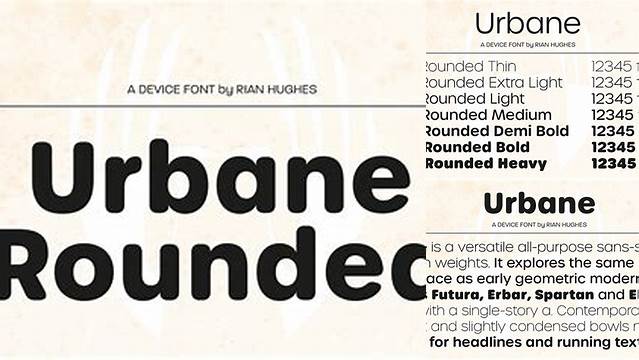
What is Urbane Rounded Font?
The urbane rounded font family is a modern, geometric sans-serif typeface characterized by its smooth, rounded terminals and clean lines. Think of it as the friendly face of fonts! Its design gives it a contemporary and approachable feel, making it incredibly versatile for various applications. Whether you're designing a website, creating marketing materials, or working on a branding project, an urbane rounded font can bring a touch of sophistication and warmth. The rounded edges soften the otherwise sharp lines of a sans-serif font, making it more inviting and less sterile. This font style excels in readability, whether used in headlines or body text, contributing to a positive user experience. It embodies a perfect balance between modernity and approachability, making it a favorite among designers aiming for a clean, contemporary aesthetic with a touch of friendliness. The urbane rounded font isn't just a style; it's a statement of modern, accessible design. Its versatility means it can be applied across various mediums, from digital interfaces to print materials, ensuring a cohesive visual identity. In a world where first impressions matter, choosing the right font is crucial, and an urbane rounded font offers a blend of professionalism and personality that's hard to beat.
Why Choose an Urbane Rounded Font?
So, why should you specifically choose an urbane rounded font for your next project? Well, there are several compelling reasons! First off, it's incredibly versatile. This font style works beautifully in a variety of contexts, from website headers to business cards. The rounded edges give it a softer, more approachable feel compared to traditional sans-serif fonts, which can sometimes come across as too stark or formal. This makes an urbane rounded font ideal for brands aiming to communicate a sense of friendliness and openness. Moreover, the clean lines and clear letterforms ensure excellent readability, whether on screen or in print. This is crucial for ensuring your message is easily understood. Beyond its aesthetic appeal and readability, an urbane rounded font projects a sense of modernity and sophistication. It’s a font that looks fresh and contemporary, perfect for businesses and creatives wanting to stay ahead of the curve. In short, choosing an urbane rounded font is a smart move if you want to balance professionalism with a touch of warmth and modernity. This font doesn't just look good; it communicates a specific brand personality, making it a powerful tool in your design arsenal. Whether you’re revamping your brand identity or starting a new project, consider the impact an urbane rounded font can have on your overall aesthetic and message.
Key Features of Urbane Rounded Fonts
Let's break down the key features of urbane rounded fonts to understand why they're so appealing. The most defining characteristic is, of course, the rounded terminals. Instead of sharp, angular edges, the strokes end in soft curves, giving the font a gentle, approachable vibe. This is a stark contrast to more traditional sans-serif fonts, which often have a more rigid appearance. Another key feature is the clean, geometric structure. Urbane rounded fonts are typically designed with a focus on simplicity and clarity, making them highly legible in a variety of sizes and contexts. The consistent stroke weight and uniform letterforms contribute to this readability. Furthermore, many urbane rounded fonts come in a variety of weights, from light to bold, giving you plenty of flexibility to use them in different parts of your design. This range of weights allows you to create visual hierarchy and emphasize key elements. In addition to these features, an urbane rounded font often includes a comprehensive character set, including numerals, punctuation, and special characters. This ensures that you have everything you need to create complete and professional designs. Overall, the blend of rounded forms, clean geometry, and versatility makes urbane rounded fonts a go-to choice for modern designers. These features aren't just aesthetic choices; they contribute to the functionality and impact of the font, making it a powerful tool for communication.
Top Free Urbane Rounded Fonts Available
Okay, so you know where to look, but let’s get specific. What are some top free urbane rounded fonts that you can download right now? One standout option is Montserrat. While not strictly “rounded” in the extreme sense, Montserrat features gently rounded terminals that give it a sophisticated yet approachable feel. It's incredibly versatile and works well for both headlines and body text. Another fantastic choice is Nunito. Nunito is a true rounded sans-serif font, with perfectly circular letterforms that exude friendliness and warmth. It's a great option for projects that need a soft, inviting touch. Poppins is another excellent contender. This font boasts clean lines and a geometric structure, with subtle rounding that adds to its modern appeal. It’s highly legible and comes in a variety of weights, making it suitable for a wide range of design applications. Lato is also worth considering. While it has a slightly more open and airy feel than some other rounded fonts, it still maintains a friendly and approachable character. Lato is particularly well-suited for body text, as its readability is exceptional. When choosing a free urbane rounded font, consider the overall tone and style of your project. Each of these fonts has its own unique personality, so selecting one that aligns with your brand or design goals is key. Experiment with different options and see which one feels the most natural and effective for your needs.
Using Urbane Rounded Fonts in Design
So, you've got your urbane rounded font installed – now what? The real fun begins when you start incorporating it into your designs! These fonts are incredibly versatile, but there are a few tips to keep in mind to get the most out of them. First, consider the overall tone and style of your project. An urbane rounded font works particularly well in designs that aim for a modern, friendly, and approachable feel. They're perfect for branding, websites, marketing materials, and more. In terms of typography, think about using your urbane rounded font for headlines and subheadings to make a strong impact. The clear, legible letterforms also make them a good choice for body text, but be sure to choose a weight and size that’s comfortable to read. Experiment with different font weights and styles to create visual hierarchy. A bold weight can be used for headlines, while a regular weight works well for body text. Pay attention to letter spacing and line height to ensure optimal readability. A free urbane rounded font can be a powerful tool in your design arsenal, but it’s important to use it thoughtfully. Consider the context, the target audience, and the overall message you want to convey. When used effectively, an urbane rounded font can elevate your designs and help you communicate with clarity and style. Don't be afraid to experiment and find the perfect balance that works for your project.
Pairing Urbane Rounded Fonts with Other Fonts
One of the keys to great typography is knowing how to pair fonts effectively. Using an urbane rounded font doesn't mean you have to stick with just that one font throughout your design. In fact, mixing and matching fonts can add visual interest and help create a more dynamic and engaging layout. So, what types of fonts pair well with urbane rounded styles? Generally, it's a good idea to create contrast by pairing a rounded font with a more angular or structured typeface. For example, you might pair an urbane rounded font with a classic serif font like Garamond or a geometric sans-serif font like Montserrat (yes, it pairs well with itself in different roles!). The combination of soft curves and sharp angles can create a balanced and harmonious look. Another approach is to use different weights of the same font family. If you're using an urbane rounded font for your headlines, try using a lighter weight of the same font for your body text, or vice versa. This creates a cohesive look while still maintaining visual interest. When pairing fonts, it’s essential to consider readability. Make sure the fonts you choose complement each other in terms of clarity and legibility. A free urbane rounded font can be the perfect starting point for a beautiful typographic palette, but the magic happens when you find the right partner. Experiment with different combinations and see what feels right for your project. Trust your eye, and don't be afraid to break the rules!
Urbane Rounded Fonts for Branding
When it comes to branding, choosing the right font is crucial. Your font is a key part of your visual identity, and it plays a significant role in how your brand is perceived. An urbane rounded font can be a fantastic choice for branding projects, especially if you want to convey a sense of modernity, friendliness, and approachability. The soft curves and clean lines of an urbane rounded font can make your brand feel more welcoming and accessible. This is particularly important for businesses that want to connect with their audience on a personal level. Think about brands in the tech, wellness, or creative industries – these often benefit from the approachable vibe of an urbane rounded font. However, it's not just about aesthetics. A free urbane rounded font can also help with readability, ensuring that your brand message is clear and easy to understand. This is especially important for logos and marketing materials, where you want your message to resonate quickly. When using an urbane rounded font for branding, consider how it will work across different platforms and applications. Will it look good on your website? On your business cards? On social media graphics? Consistency is key when it comes to branding, so make sure your chosen font works well in all contexts. Ultimately, an urbane rounded font can be a powerful tool for building a brand identity that is both modern and approachable. It's a font that communicates confidence and warmth, making it a solid choice for businesses that want to make a positive impression.
Conclusion: The Versatility of Urbane Rounded Fonts
So, we’ve reached the end of our deep dive into the world of urbane rounded fonts. Hopefully, you’ve gained a solid understanding of what makes these fonts so special, where to find them, and how to use them effectively. The key takeaway is the sheer versatility of urbane rounded fonts. They’re equally at home in website design, branding, print materials, mobile apps, and more. Their clean lines, friendly feel, and excellent readability make them a fantastic choice for a wide range of projects. Whether you’re aiming for a modern, approachable look or a more playful and whimsical vibe, an urbane rounded font can help you achieve your goals. Just remember to choose the right font for your specific needs and to use it thoughtfully. Think about the message you want to convey, the audience you’re trying to reach, and the overall design aesthetic you’re aiming for. Also, don't forget the importance of ethical font usage. Always check the licensing terms before using a font, and give credit where credit is due. By following these guidelines, you can make the most of urbane rounded fonts and create designs that are both visually appealing and highly effective. A free urbane rounded font can be a valuable asset in your design toolkit, but it’s the way you use it that truly matters. Happy designing!